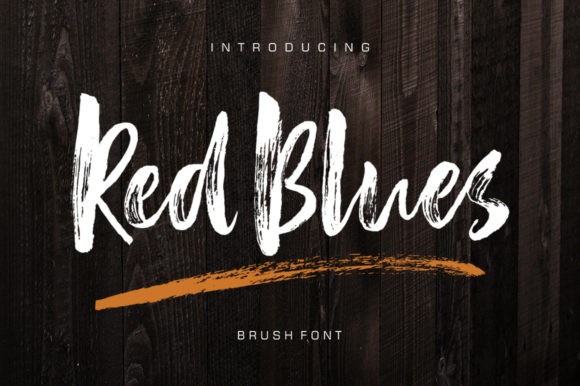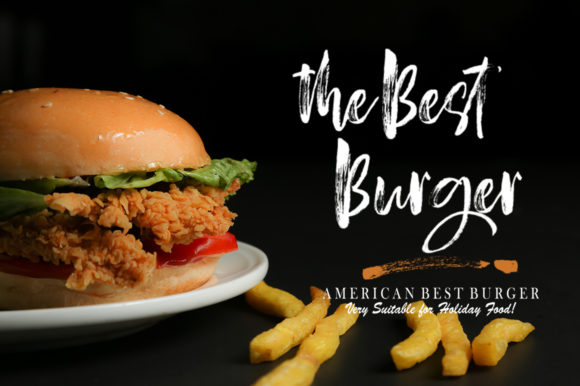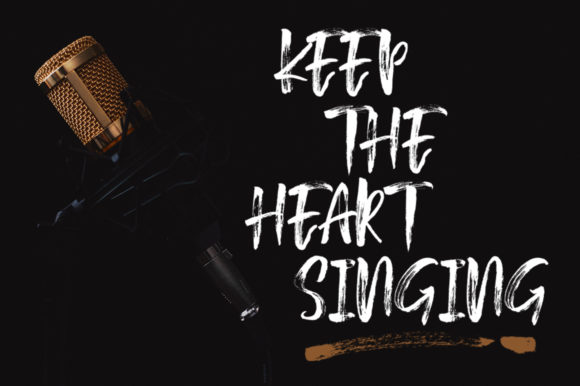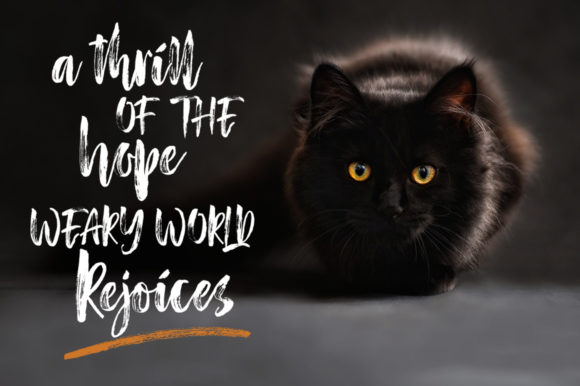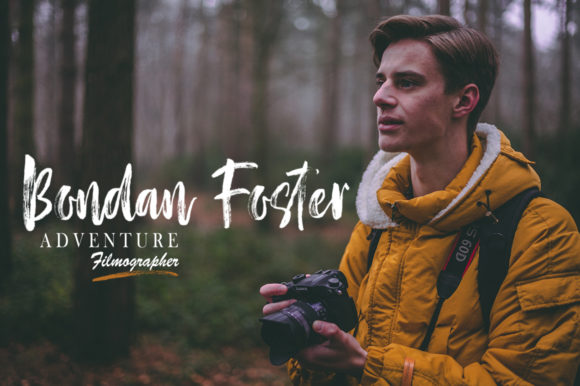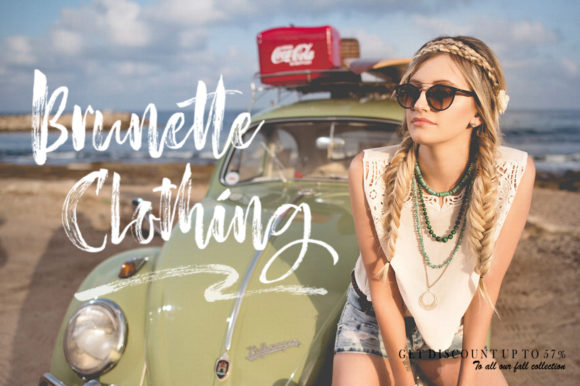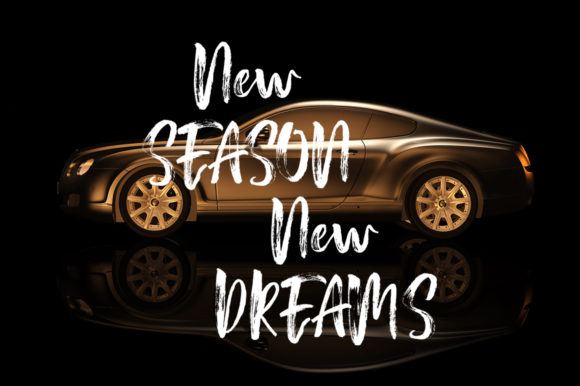
HomeScript FontsRed Blues Font Script Fonts Red Blues Font FacebookXPinterestWhatsApp Red Blues Font Poster 2 Red Blues Font Poster 3 Red Blues Font Poster 4 Red Blues Font Poster 5 Red Blues Font Poster 6 Red Blues Font Poster 7 About Red Blues Font Red Blues is a bold brush font with a contemporary feel. Use it to turn any design project into an eye-catcher! DOWNLOAD NOW People also explored Baleish Font Hitbary Font Agalynd Font Today Story Font Kartina Script Font Garanx Font Huttely Font Cacao Latte Font 379 0 TagsRed Blues Font Previous articleBezitha Glare FontNext articleBlack Vosten Font LEAVE A REPLY Cancel reply Comment: Please enter your comment! Name:* Please enter your name here Email:* You have entered an incorrect email address! Please enter your email address here Website: Save my name, email, and website in this browser for the next time I comment. Personal Use Free Adelaide Personal Use Free Read more about this font Propaganda Personal Use Free Read more about this font Pumpkins Candles Personal Use Free Read more about this font Geracella Personal Use Free Read more about this font BLOG Free vs Paid Fonts: Why Investing in Premium Fonts Is Worth It Free vs Paid Fonts: Why Premium Fonts Are Worth It in 2025 The debate of free vs paid fonts continues in the design world. While... The 10 Best Handwriting Fonts to Add Personality to Your Designs Best Fonts for YouTube Videos: Make Your Thumbnails Stand Out Using Fonts in Digital Marketing: Tips to Strengthen Your Brand Identity